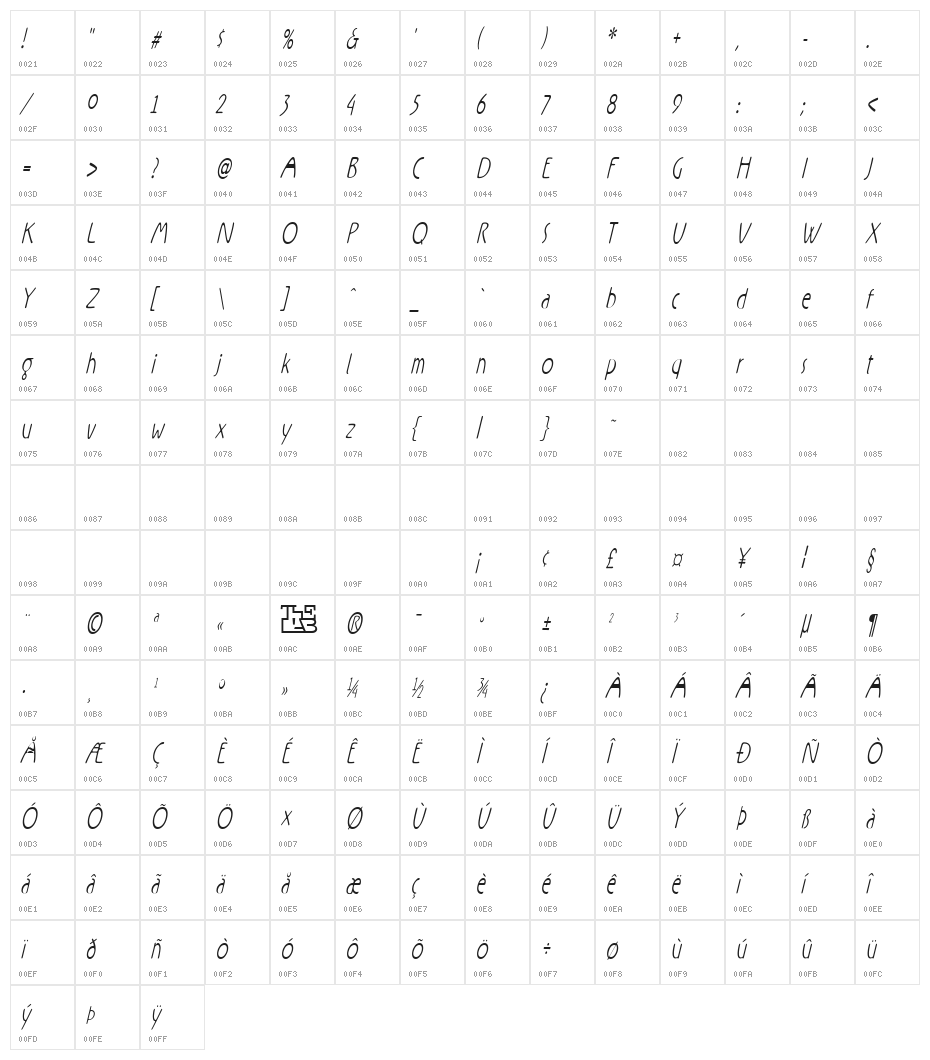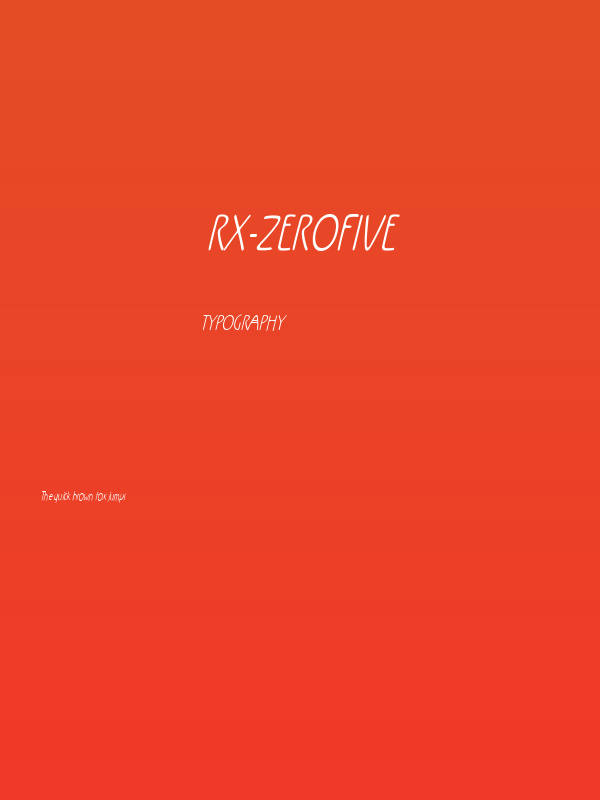
Rx-ZeroFive Font
Rx-ZeroFive Description
This font features a sleek, modern design with a slight slant, giving it a dynamic and elegant appearance. The characters are elongated with smooth curves and a consistent stroke width, creating a sense of fluidity and motion. The uppercase letters are tall and narrow, while the lowercase letters maintain a similar style, offering a harmonious blend. The numerals are distinct and easy to read, matching the overall aesthetic of the font. Special characters are designed with the same attention to detail, ensuring a cohesive look across all glyphs.
| Use Case | Logos, Invitations, Editorial Design |
| Proposed Projects | Ideal for fashion branding, modern logos, elegant invitations, and stylish editorial design. |